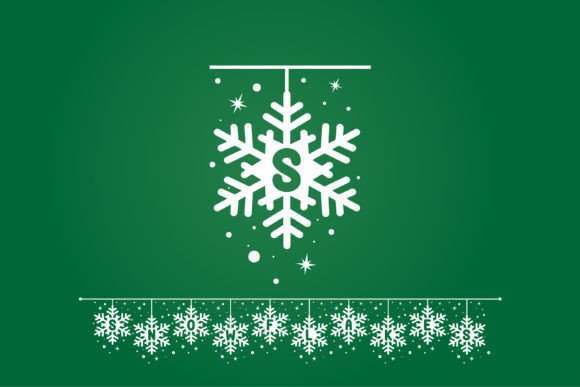
Introducing Snowflakes String Font - the perfect font style for your next T-shirt design! Created by the talented design team at susecreative, this cool and unique decorative display font is specifically crafted to add a touch of Christmas magic to your projects.
Inspired by the beauty of Christmas ornaments, Snowflakes String Font captures the spirit of the holiday season effortlessly. Its delicate and intricate design truly sets it apart, making it an ideal choice for creating adorable holiday-themed T-shirts, stickers, cover books, children’s books, social media posts, and so much more!
When you download Snowflakes String Font, you unlock a world of creative possibilities. Imagine the joy on your loved ones' faces when they see your custom-designed Christmas T-shirts featuring this eye-catching font. Its captivating style adds a whimsical charm, instantly transforming your designs into festive masterpieces.
With Snowflakes String Font, you can effortlessly spread the holiday cheer. Its versatility allows you to create stunning visuals for various platforms, whether it's personalized holiday greetings for your family and friends or eye-catching social media posts that will have your followers in awe.
What sets Snowflakes String Font apart is its ability to evoke emotions. The intricate details of each letter conjure up memories of snowflakes gently falling from the sky, creating a sense of warmth and nostalgia. Your designs will truly capture the essence of the holiday season and leave a lasting impression on anyone who sees them.